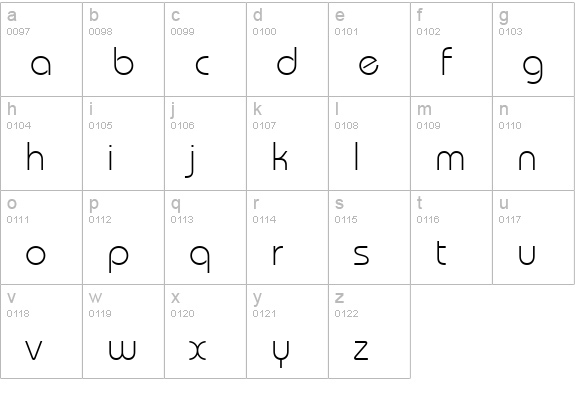
Bauhaus Light BT is a refined, elegant variant in the Bauhaus typeface family \xE2\x80\x94 well suited to elegant body text, refined sub-headings, and luxury branding.
Bauhaus Light BT font is a modern, minimalist typeface that exudes elegance and sophistication. With its clean lines and geometric shapes, this font is perfect for adding a touch of contemporary flair to your designs. The light weight of the font gives it a delicate and airy feel, making it ideal for use in a variety of design projects. Not only does Bauhaus Light BT font offer a sleek and stylish aesthetic, but it is also versatile and easy to read. Whether you're designing a logo, creating a brochure, or working on a web project, this font will make your text stand out with its effortless charm. The best part? Bauhaus Light BT font is available for free download at FontsMarket.com. So go ahead and elevate your designs with this modern and sophisticated typeface today!